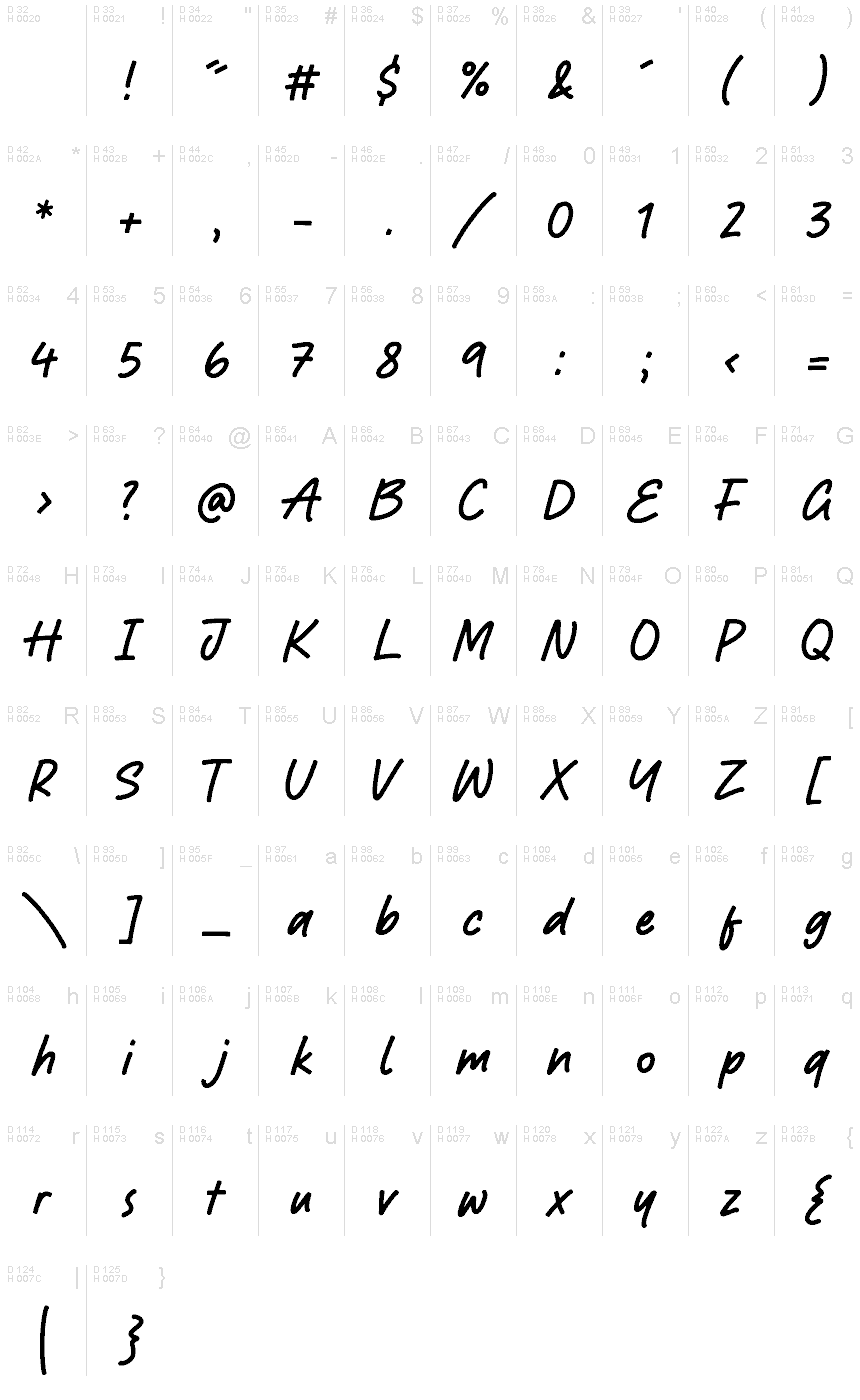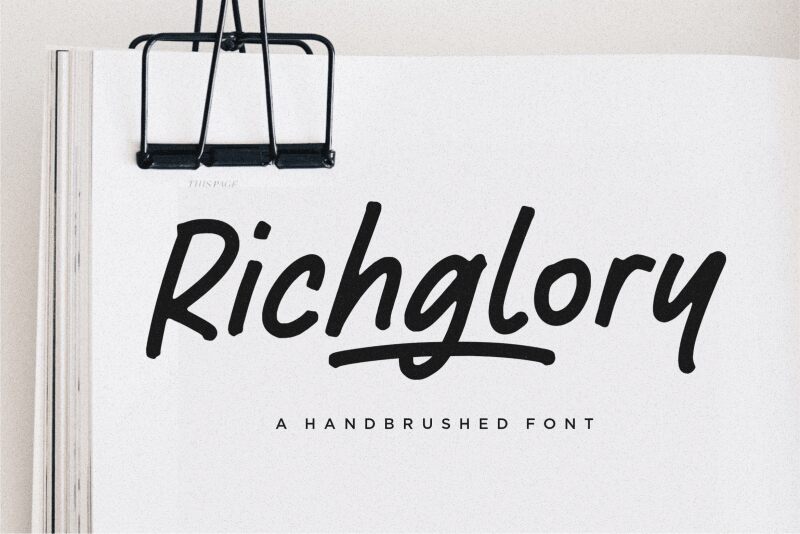
Richglory
If you’re looking for a retro-inspired, cursive handwriting font to use for your vintage and retro designs and branding projects, you’ve come to the right place. Richglory is a font created by Letterative Studio and made available for free download. With its rounded letters and relaxed curves, this gorgeous cursive font adds a personal, yet classy touch to your texts, instantly conveying emotions and authenticity to your audience.
The Richglory font comes in one weight and is ideal for use in posters, banners, magazine covers, apparel and merchandise designs, postcards, wedding invitations and stationery, brochures, logotypes, flyers, social media posts, photo album covers, menu designs, business card designs, branding projects, greeting cards and a lot more. Download this free font today and add a classic and vintage touch to all your retro designs.